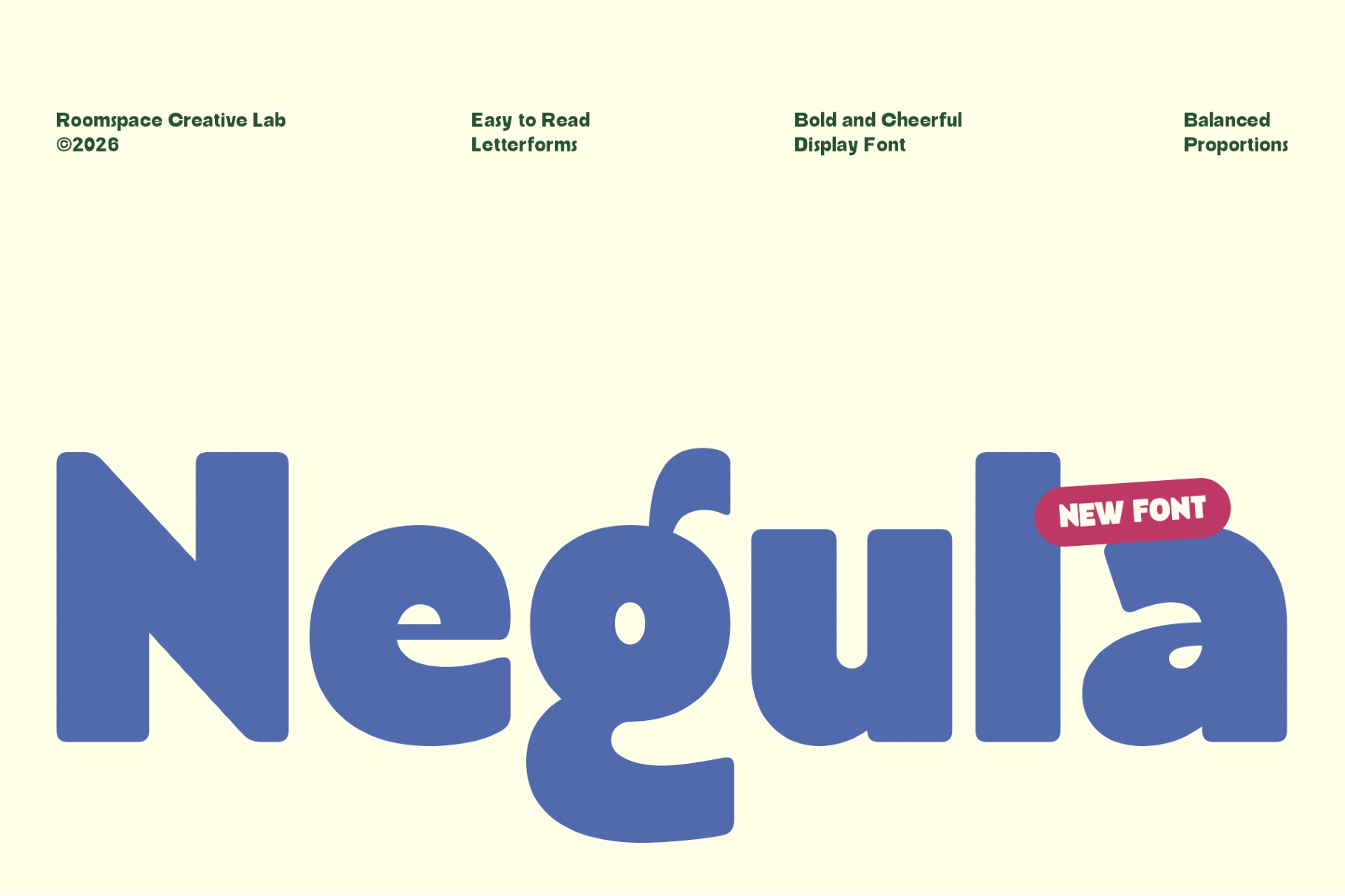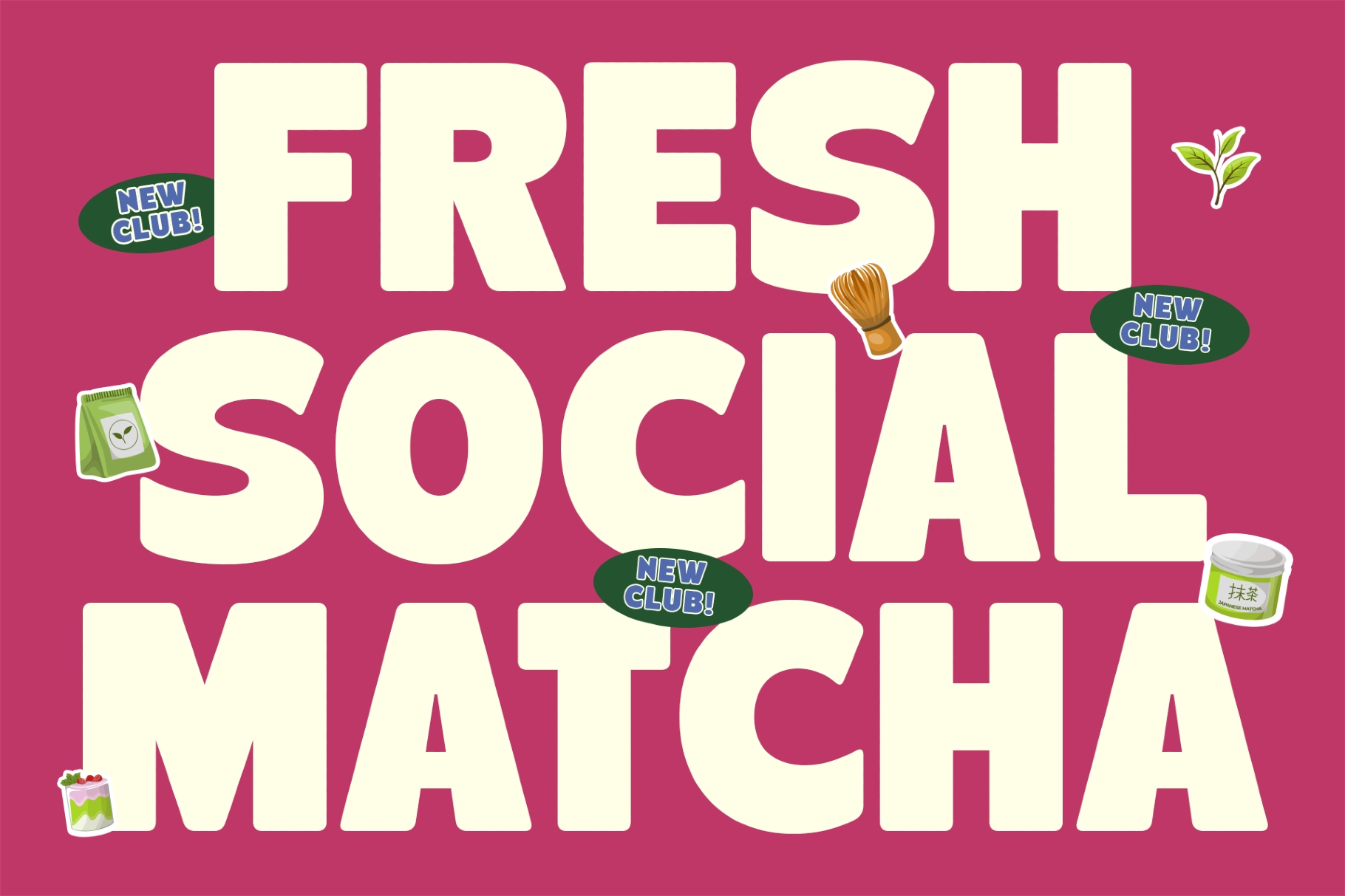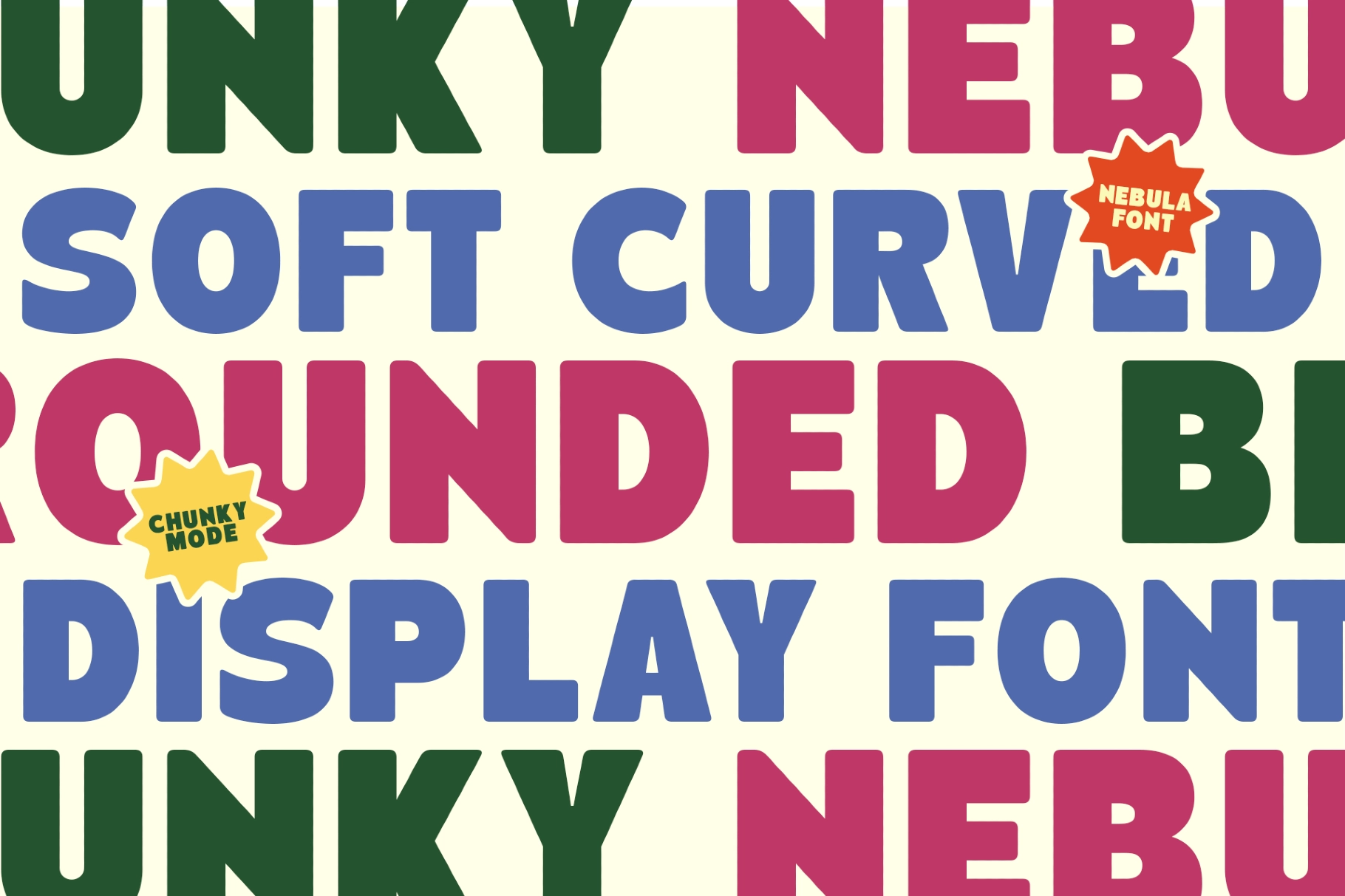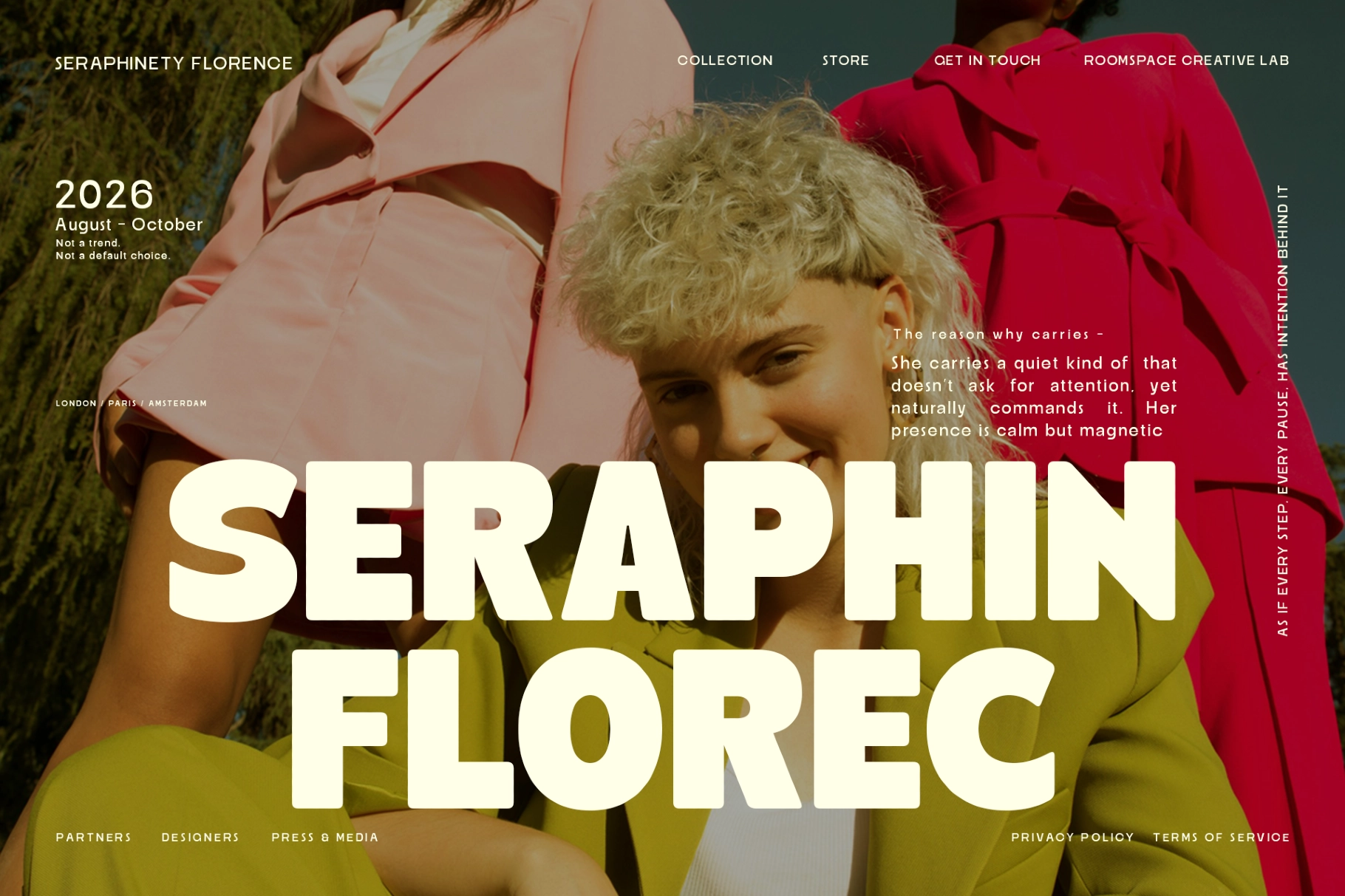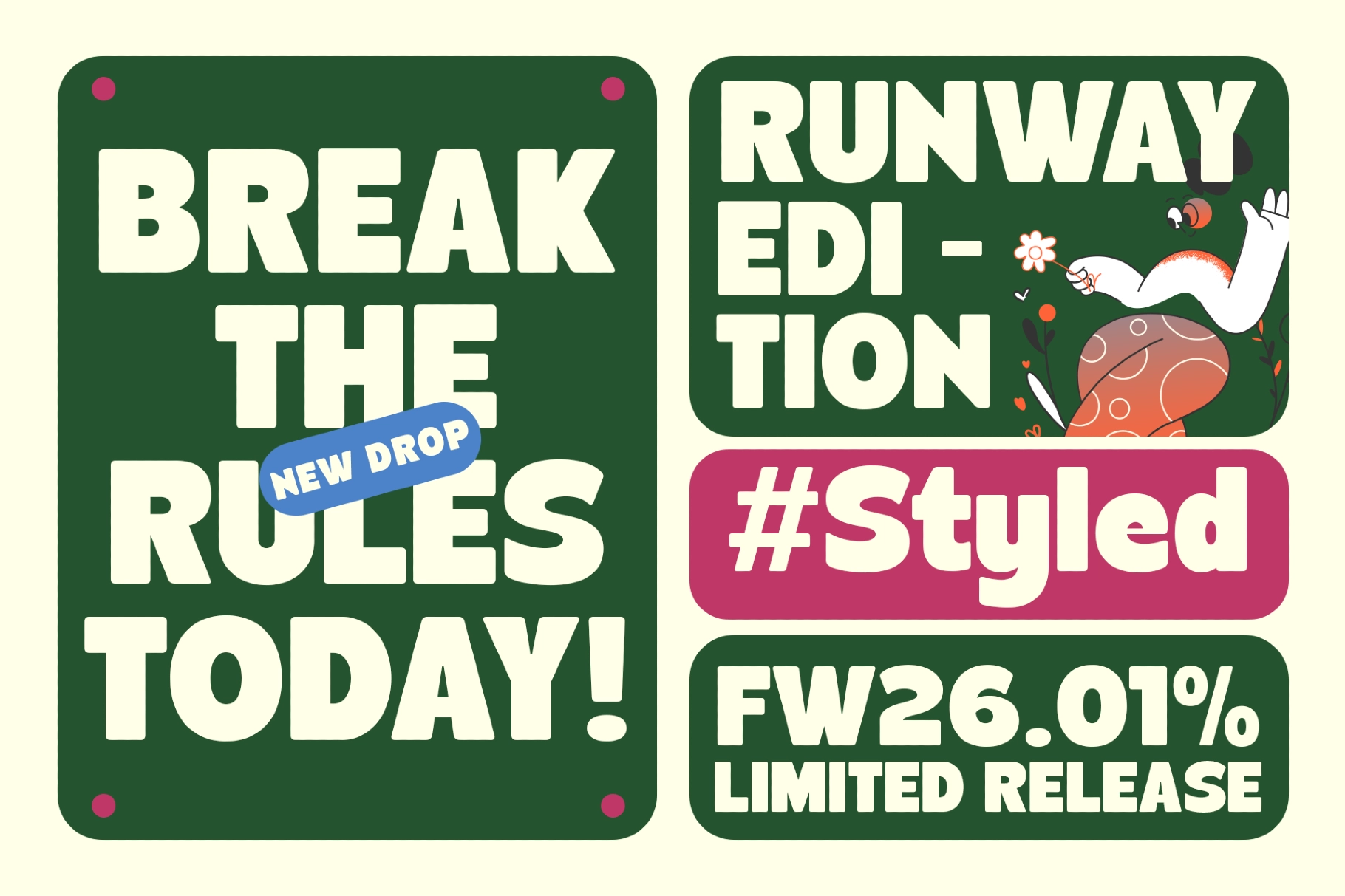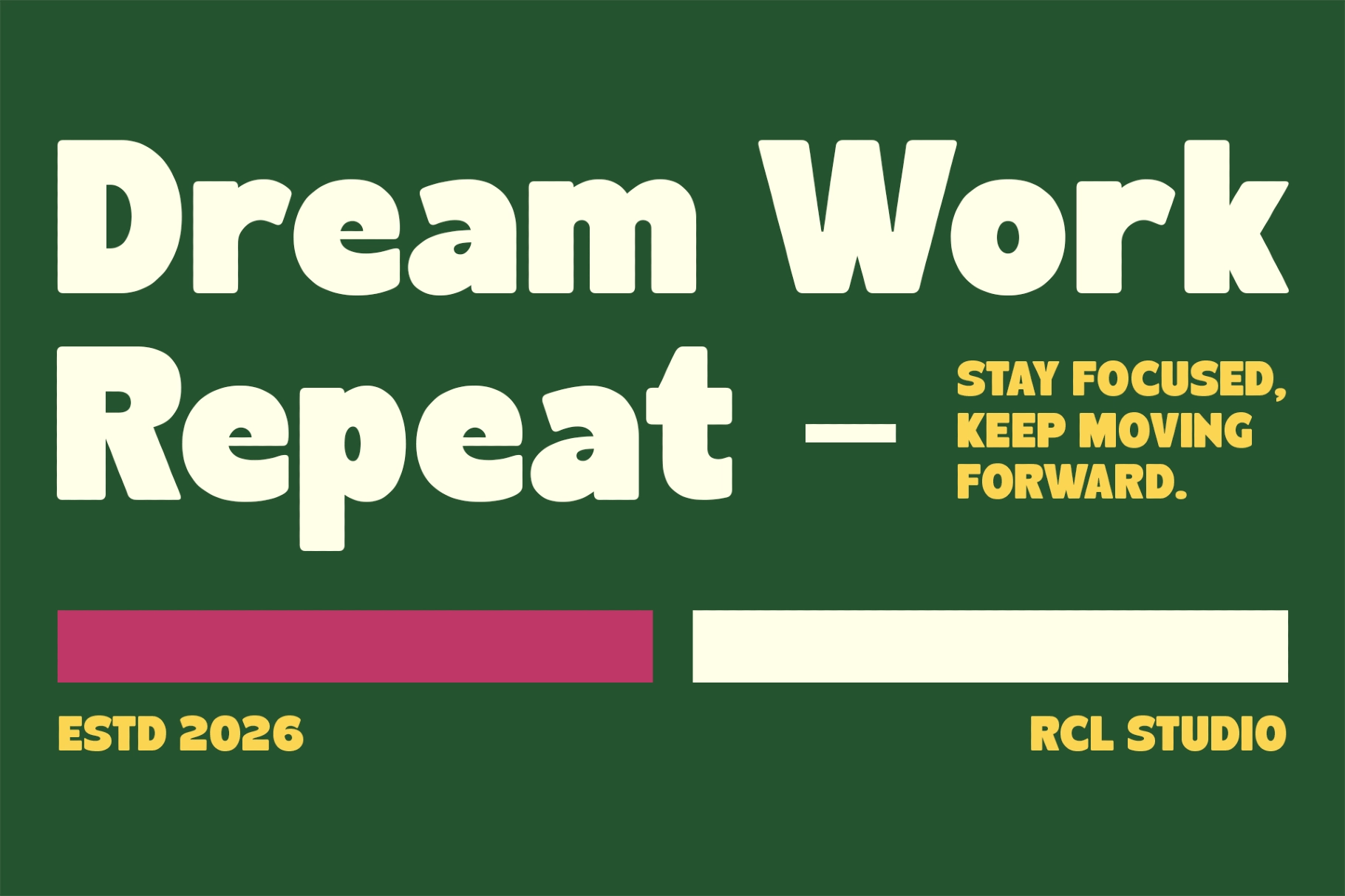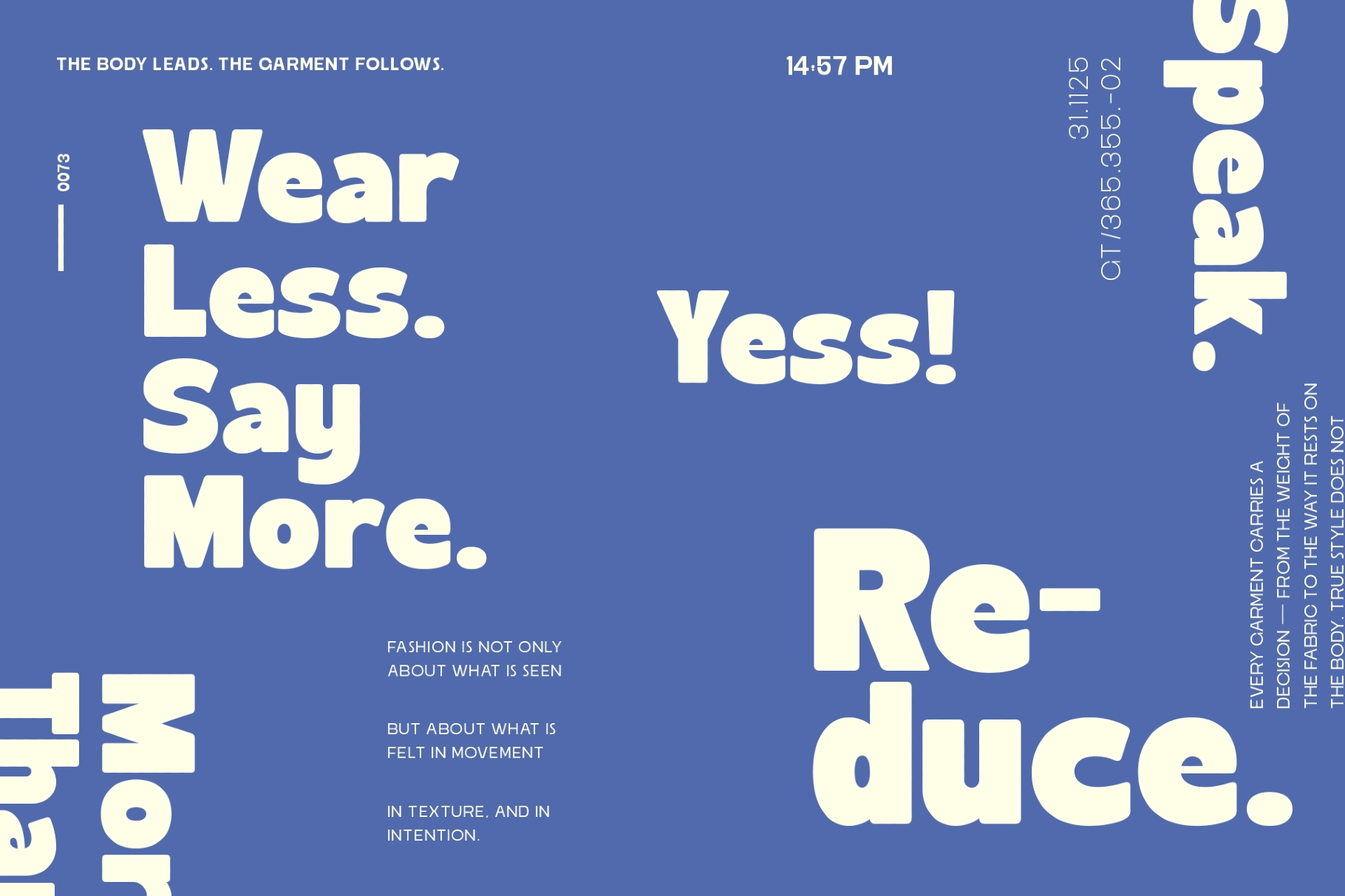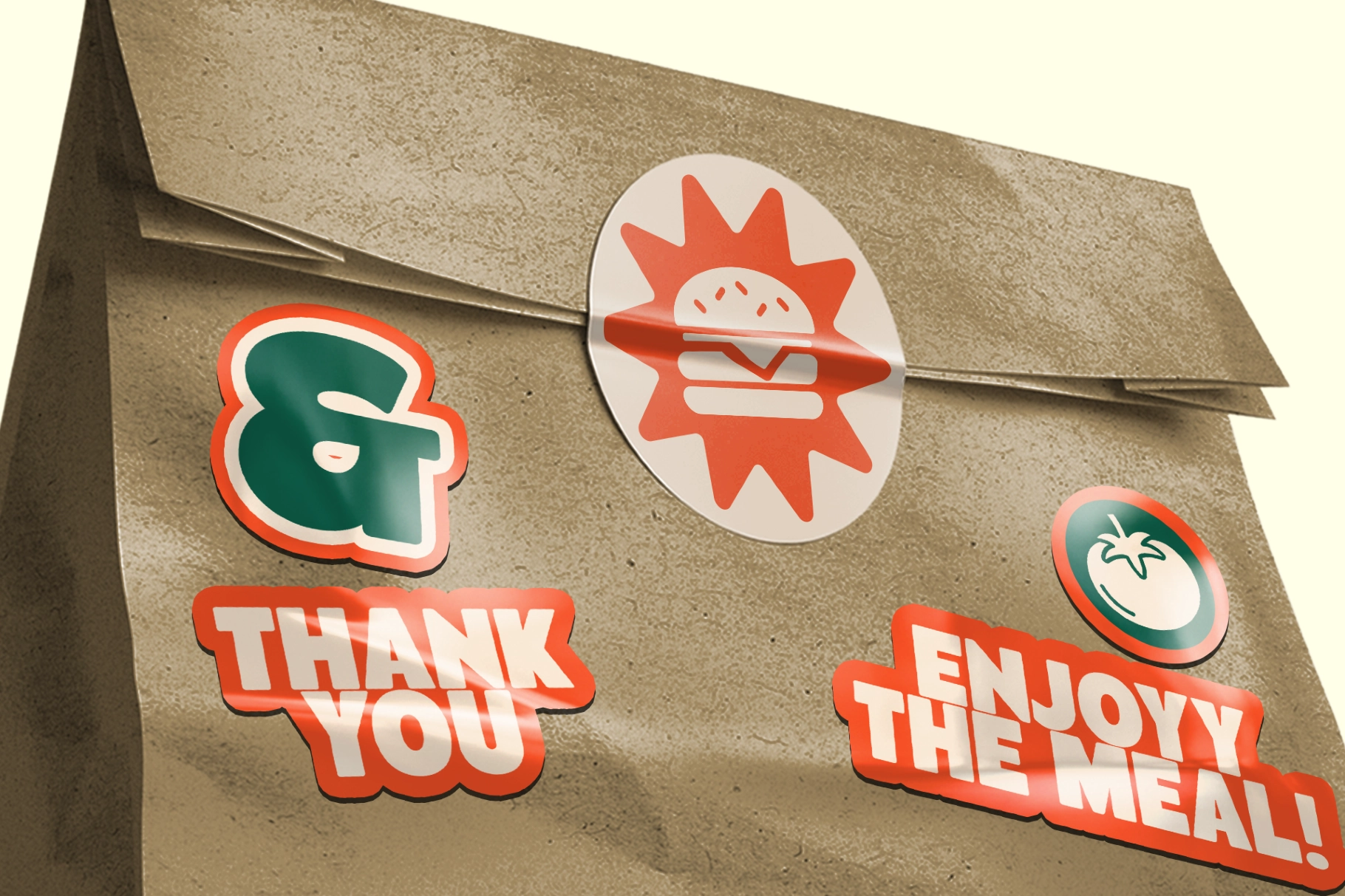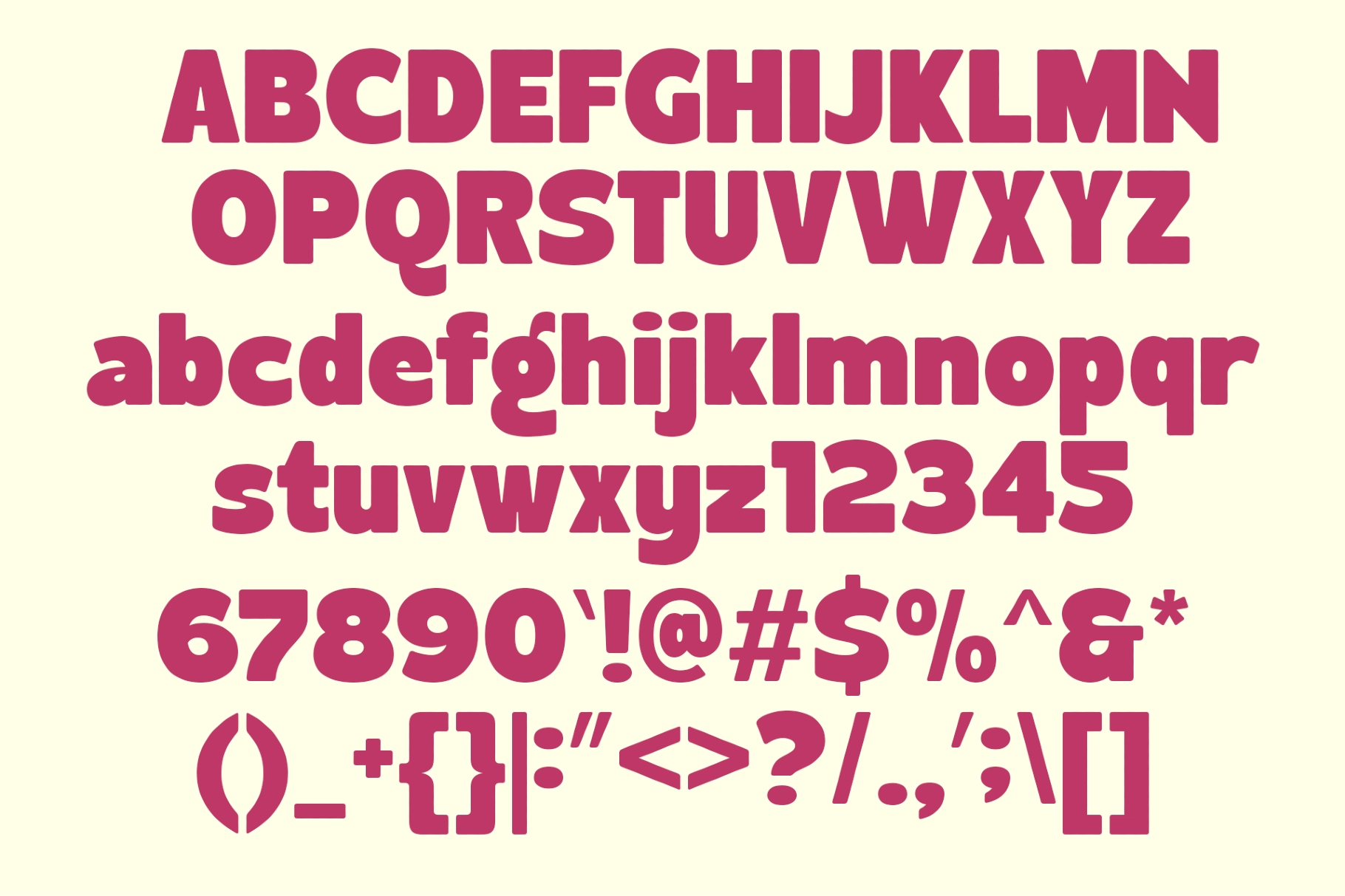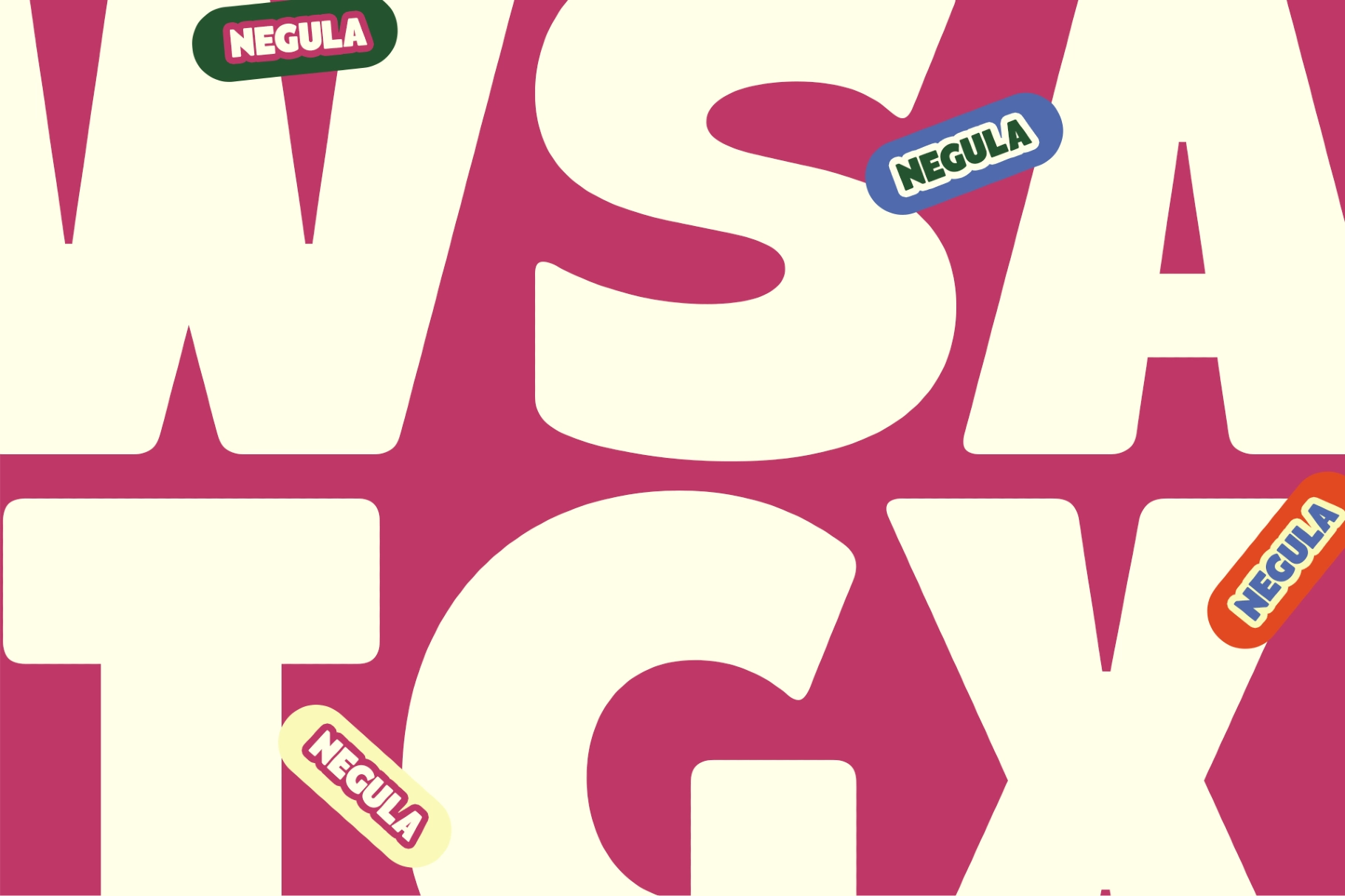
Negula - Bold Rounded Display Font
Oblique
Negula is a bold rounded display font with near-uniform stroke weight, fully rounded terminals, and wide, stable proportions — the kind of construction that reads as confident rather than soft, even at large scale. The x-height is high, the spacing is generous, and the letterforms hold their legibility in all-caps lockups as well as mixed case. The Oblique adds a leaning energy that works well for emphasis lines, subheadings, and social call-outs where the upright version anchors the layout.
It works best for food and beverage packaging, streetwear drop graphics, café and lifestyle branding, children's product labels, social campaign headlines, and app or web hero type.